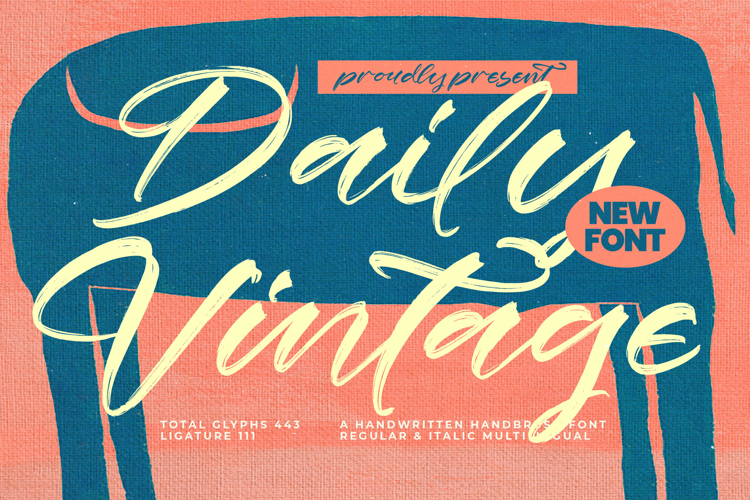
Daily Vintage - Handwritten Brush Font
Unleash the raw energy of authentic brush lettering with Daily Vintage - Handwritten Brush Font. This dynamic script captures the inherent imperfections and rich texture of traditional dry brush application, delivering immediate visual impact. Its generous curves and high-contrast strokes create a bold, unforgettable signature look that cuts through visual clutter, making it perfect for headlines and display text that demands attention while evoking a powerful vintage aesthetic.